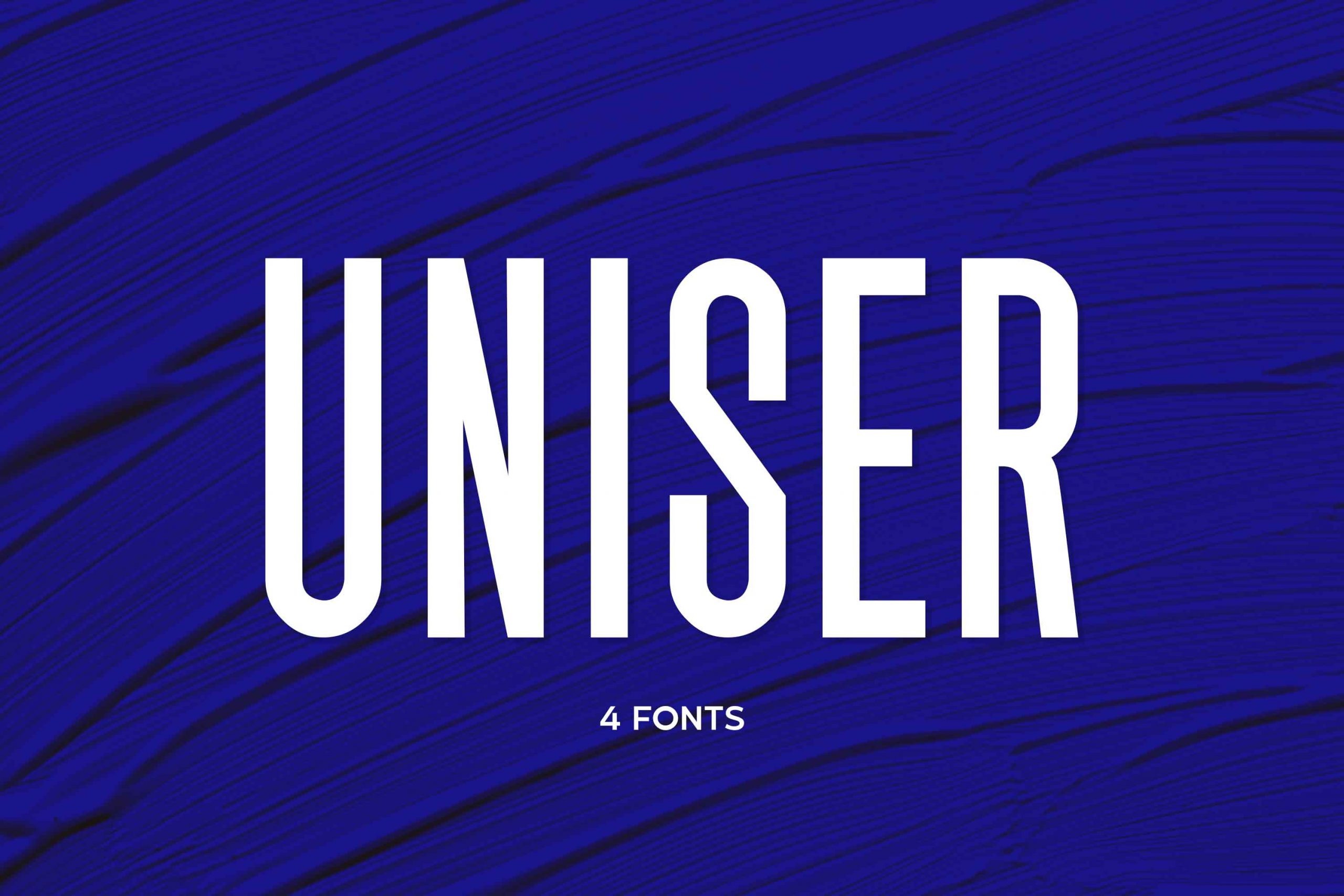
Uniser – Condensed Sans Serif Font
Uniser – Condensed Sans Serif Font is a clean and thoughtfully built typeface that works seamlessly for both professional branding and everyday creative uses. Uniser Font is inspired by famous logos of shoes and brands that have very strong characteristics, Uniser has 4 styles that allow you to get a job with satisfying results. very suitable for posters, tshirt, packaging, branding, logotype and more.
Uniser font with strong and challenging nuances. very suitable for the title, typography, clothes, Poster, magazines, brochures, packaging,Websites and much more for your design needs, making your designs more modern and professional